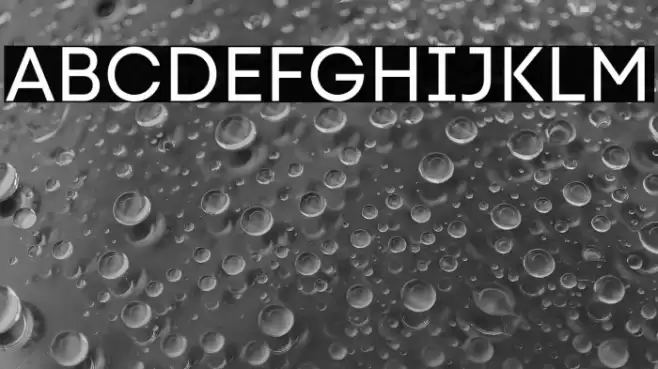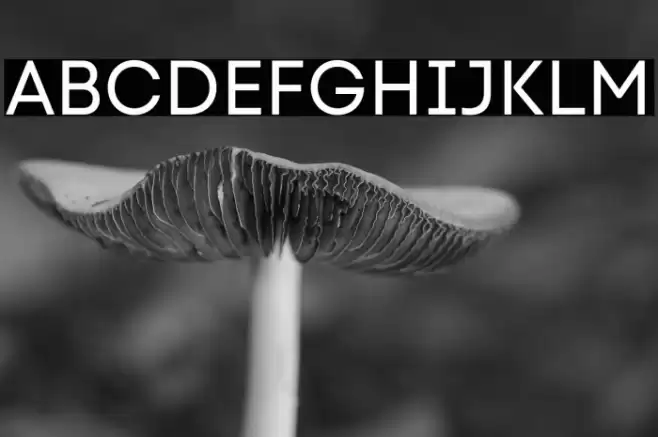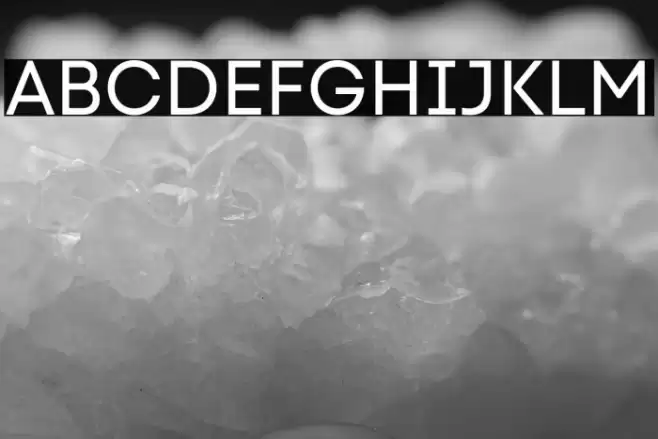
Code Next-Trial Regular Font
Code Next-Trial Regular Description
This font features a clean and modern sans-serif design, characterized by its geometric shapes and uniform stroke widths. The uppercase letters are bold and well-defined, while the lowercase letters maintain a consistent height and spacing, ensuring readability. The numerals are clear and distinct, making them suitable for various applications. Special characters are designed with simplicity in mind, enhancing the overall minimalist aesthetic. This font's clarity and balance make it versatile for both digital and print media.
A modern, geometric sans-serif font with clean lines and uniform strokes from Uncategorized fonts.
- Font: Code Next-Trial Regular
- Proposed Projects: Ideal for branding, web design, advertising, and editorial layouts.